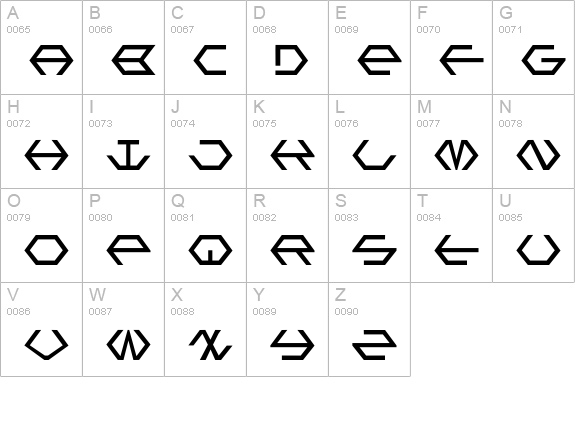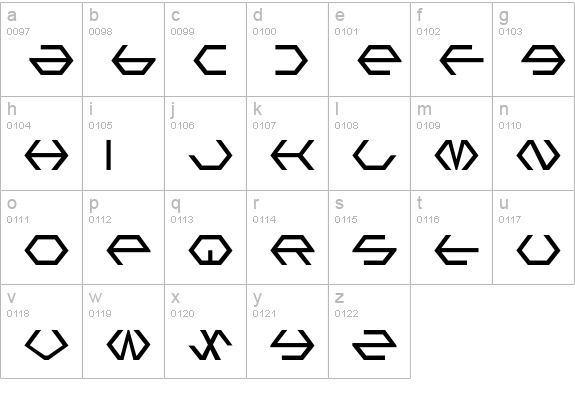
Introducing Gamma Sentry, a captivating typeface that effortlessly combines modern aesthetics with a timeless elegance. This font exudes power and sophistication, making it the perfect choice for projects that demand attention and leave a lasting impression. With its bold and sharp letterforms, Gamma Sentry commands attention and conveys a sense of authority. Its clean lines and precise curves give each character a sense of balance and harmony, ensuring legibility at any size. Whether used for headlines, logos, or body text, Gamma Sentry ensures that your message is conveyed with utmost clarity and impact. But what makes Gamma Sentry truly remarkable is that it is not only visually stunning, but also freely available to download at FontsMarket.com. Yes, you read that right! This remarkable font can be yours without any cost, allowing you to bring your designs to life without breaking the bank. Downloading Gamma Sentry from FontsMarket.com is a breeze. Simply visit the website, find the font, and click the download button. Within moments, you'll have this captivating typeface at your fingertips, ready to enhance your creative projects and elevate them to new heights. Whether you're a professional designer, a student, or someone who simply appreciates the beauty of typography, Gamma Sentry is a font that deserves a place in your collection. So why wait? Embrace the power, elegance, and affordability of Gamma Sentry today and let your designs shine with a touch of sophistication.